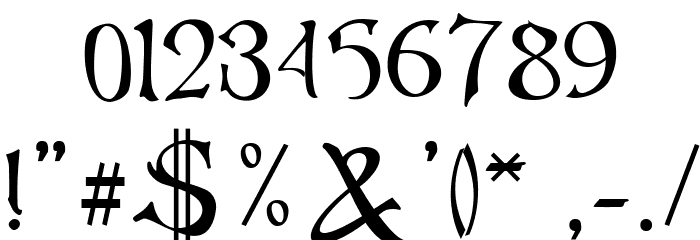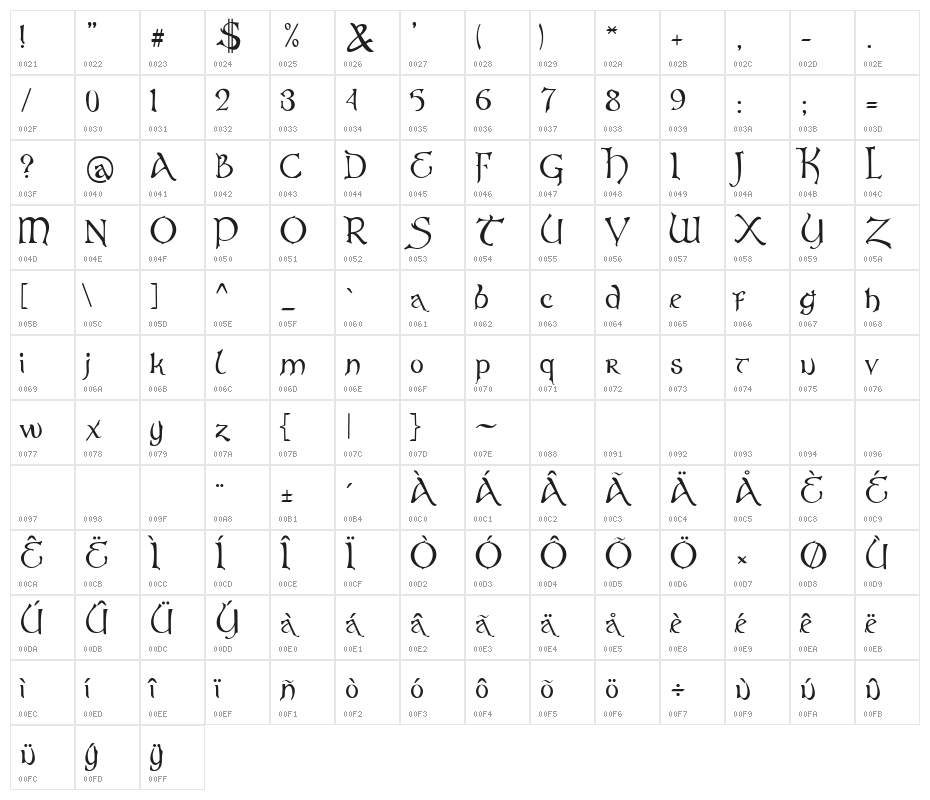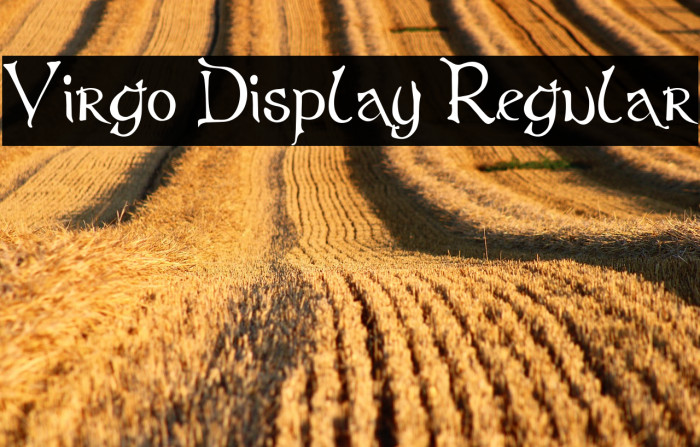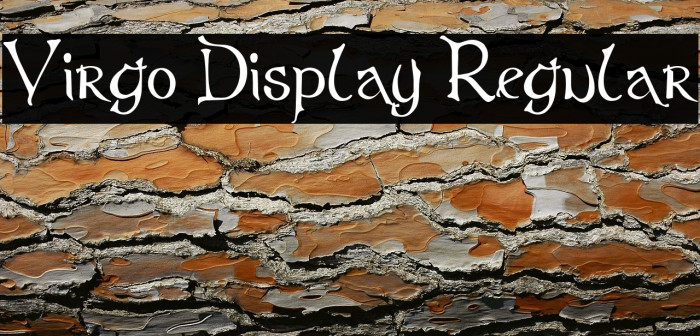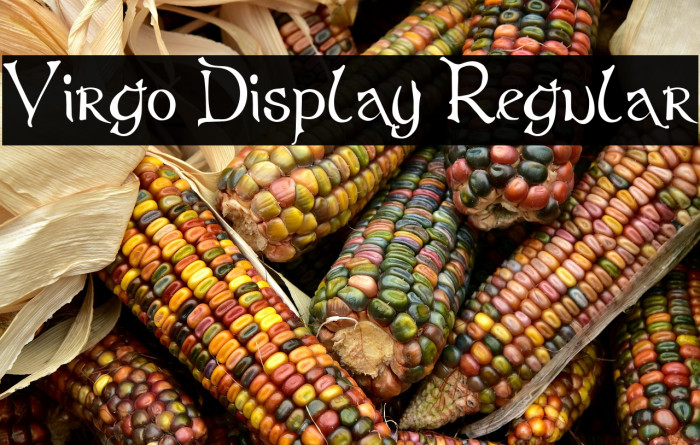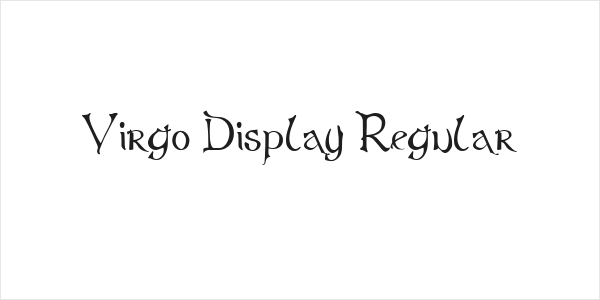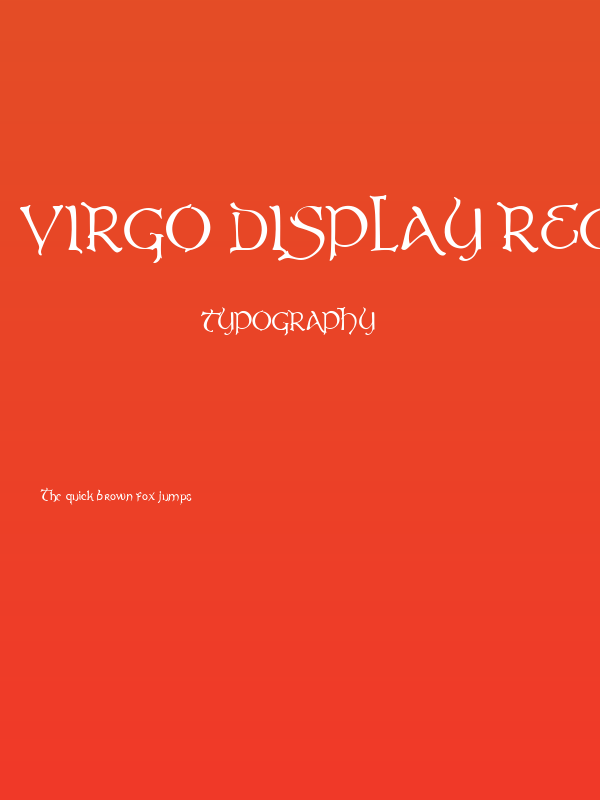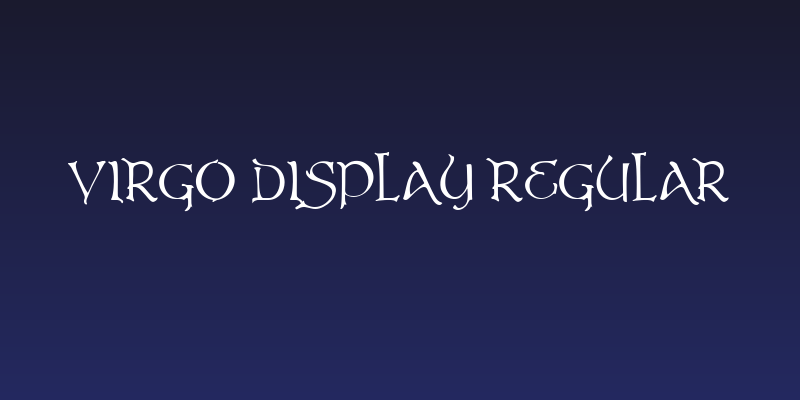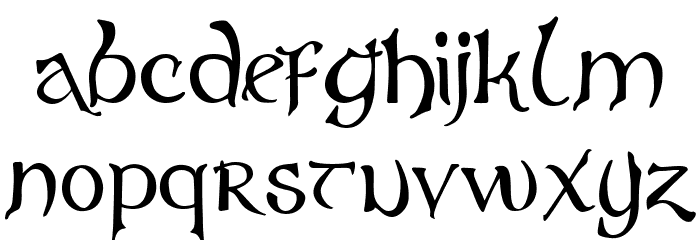
Virgo Display Regular Font
Virgo Display Regular Description
This font features a unique blend of calligraphic and gothic influences, characterized by its sharp, angular strokes and elegant curves. The uppercase letters exhibit a strong presence with their tall, slender forms, while the lowercase letters maintain a consistent flow, adding a touch of sophistication. The numerals are distinct and easily readable, complementing the overall style. Special characters are creatively designed, enhancing the font's decorative appeal. This font's intricate details and artistic flair make it suitable for projects that require a touch of elegance and historical charm.